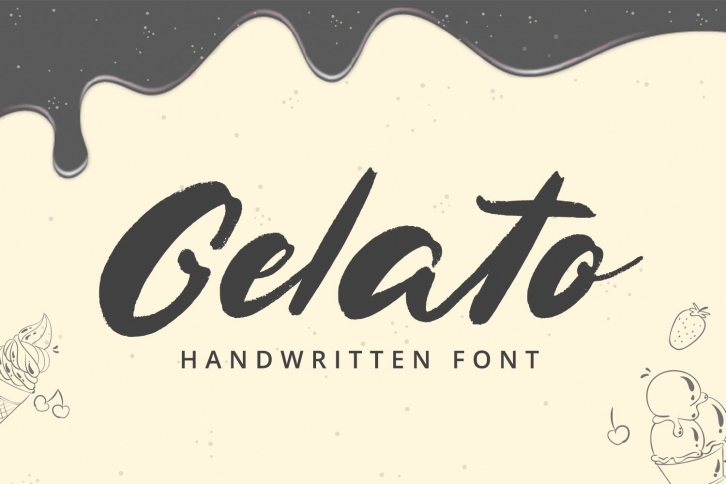
Gelato is a trendy and unique font with an authentic style. It was designed by Alpaprana Studio and it's a great choice for creative people who need such a font. It was released on September 27, 2021 and the file size is 20.99 MB. Gelato will add an organic vibe to any design idea!